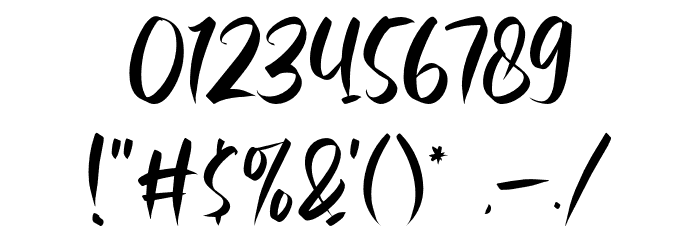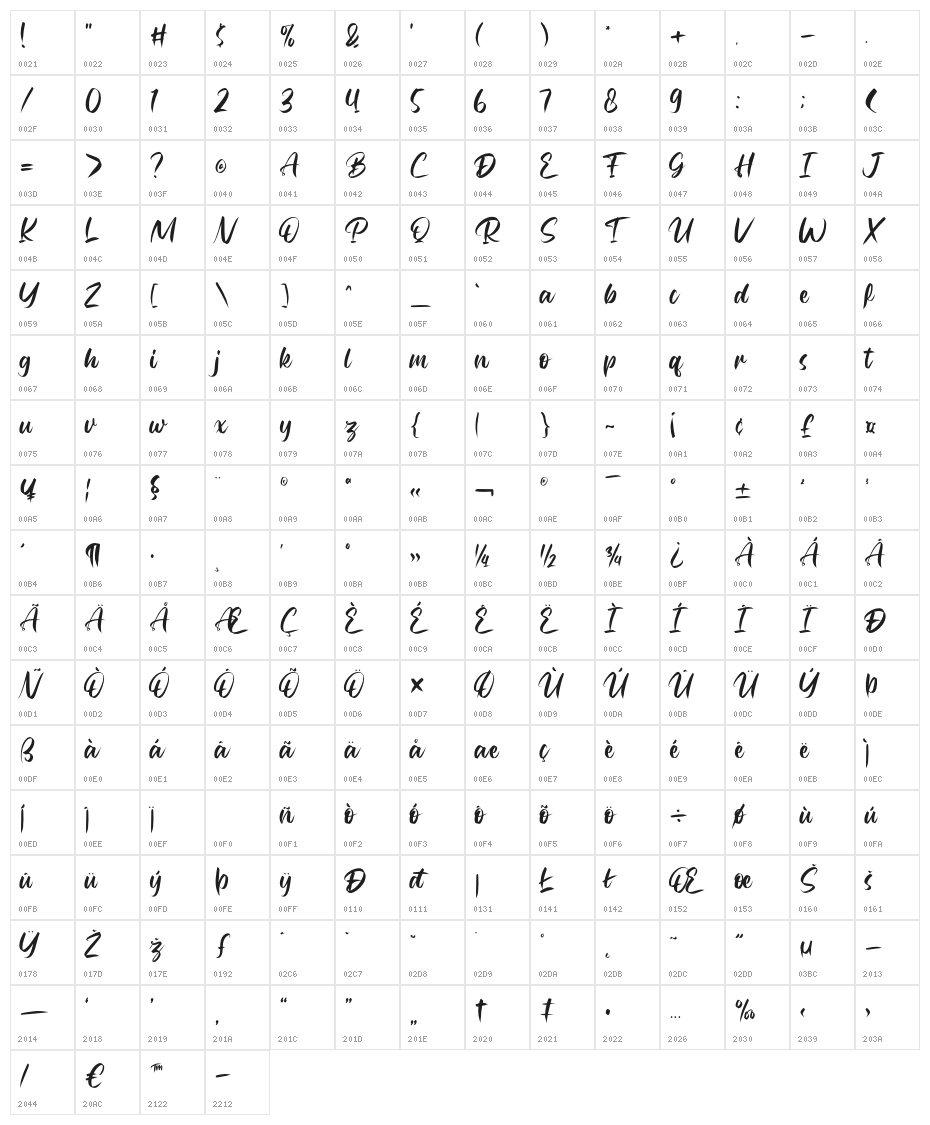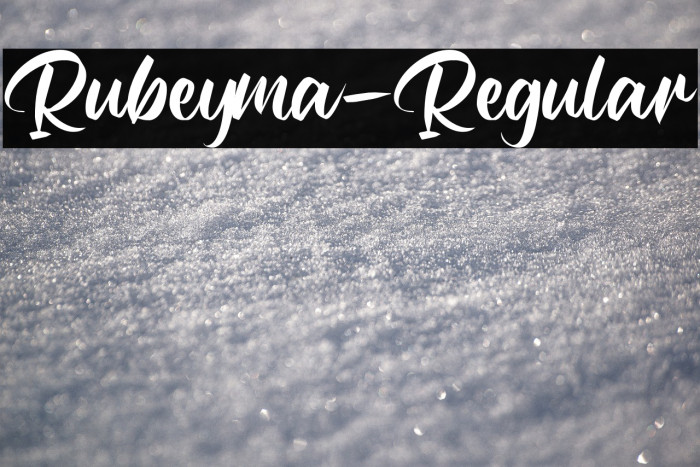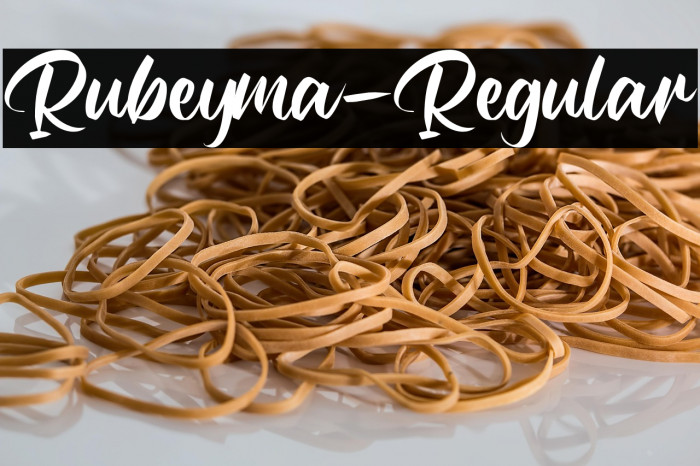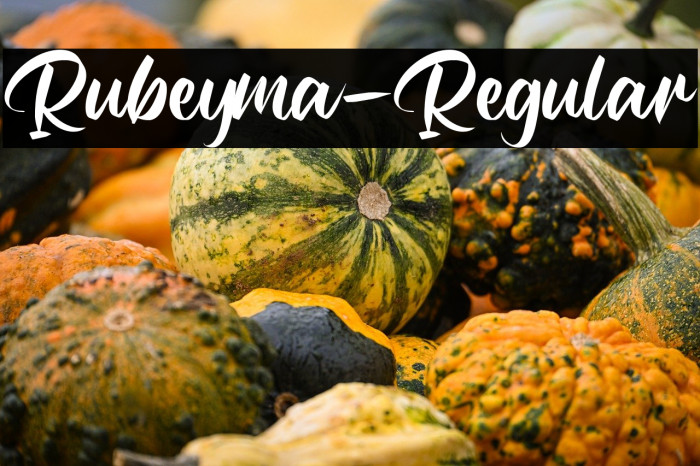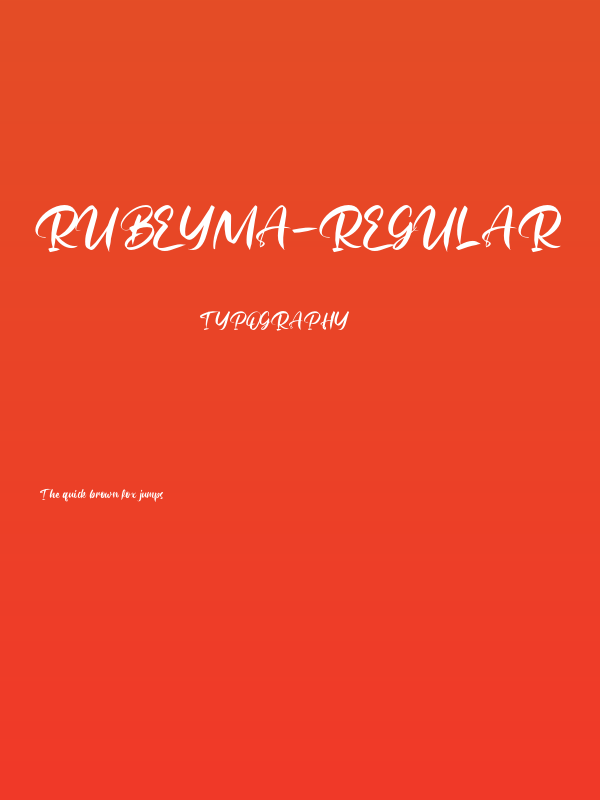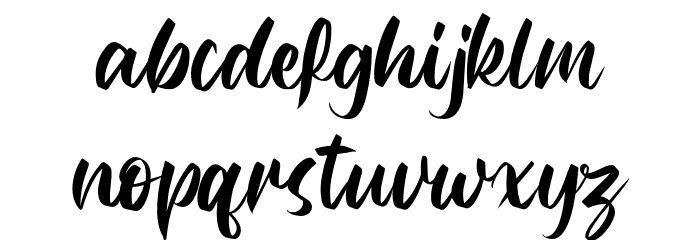
Rubeyma-Regular Font
Rubeyma-Regular Description
This font exhibits a dynamic and flowing script style, characterized by its elegant and cursive letterforms. The uppercase letters are bold and sweeping, with a distinct flair that adds a sense of movement and sophistication. The lowercase letters maintain a consistent fluidity, enhancing readability while retaining an artistic touch. Numbers and special characters are crafted with the same attention to detail, ensuring a cohesive appearance across all glyphs. The overall design is both expressive and refined, making it suitable for creative and formal applications.
| Use Case | Logos, Invitations, Headlines |
| Proposed Projects | Ideal for wedding invitations, branding, greeting cards, and elegant packaging designs. |